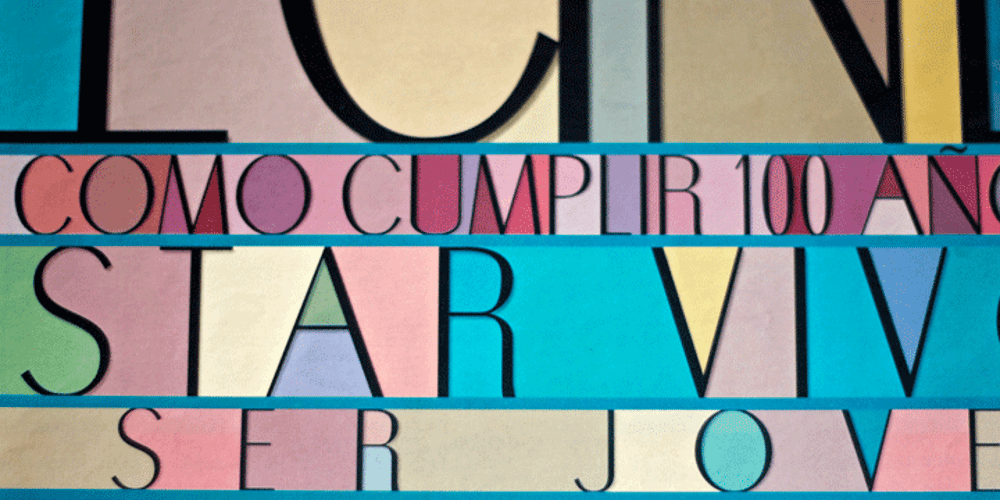
Trio CT
Trio CT font
Trio CT Font Family was designed by Jason Castle and published by CastleType. Trio CT contains 3 styles and family package options. I was commissioned by Publish magazine to digitize Trio in 1990. Originally designed in a Light weight only, Trio is now available in Medium and Bold weights as well. Uppercase only, but each weight includes two alphabets, one more “deco,” the other more “modern.”